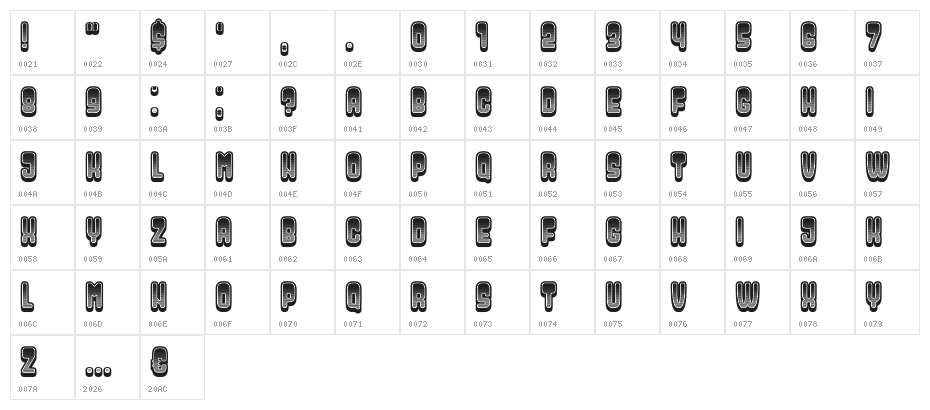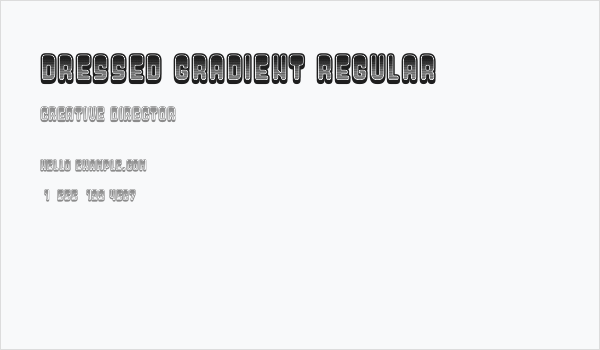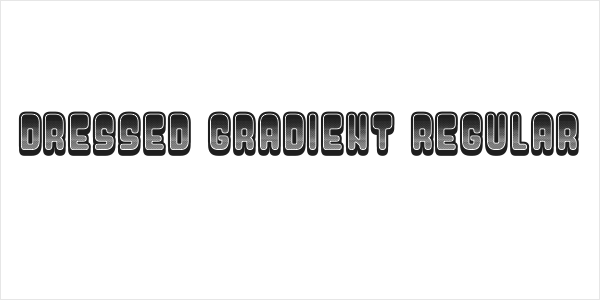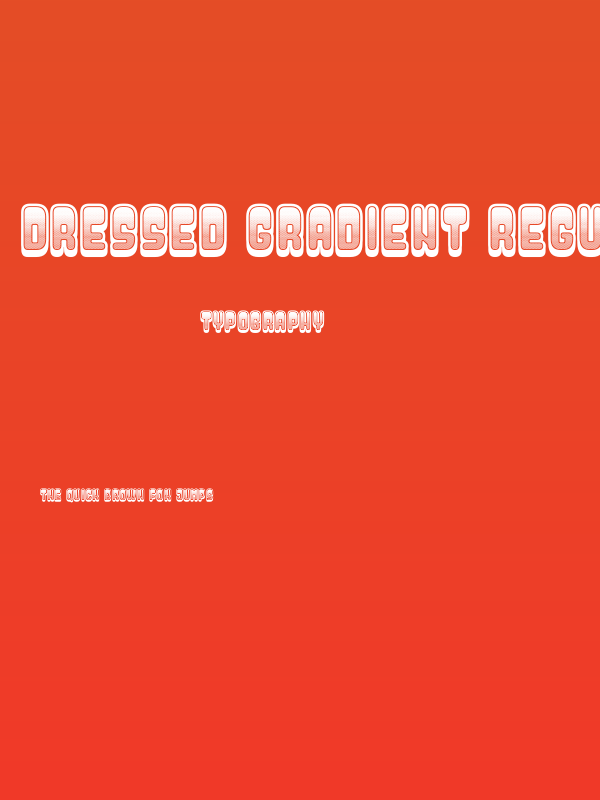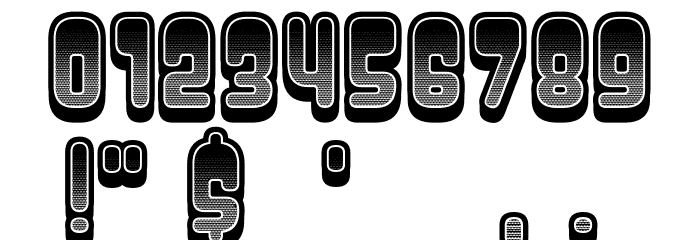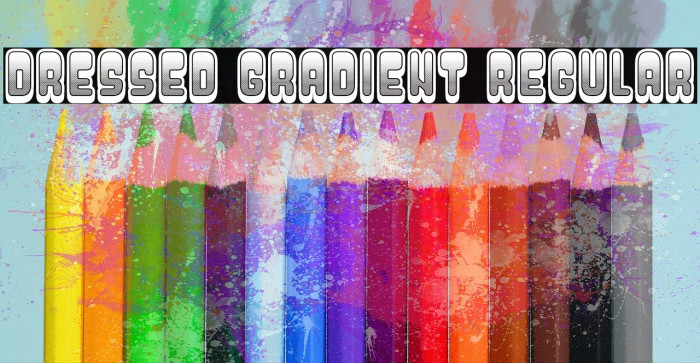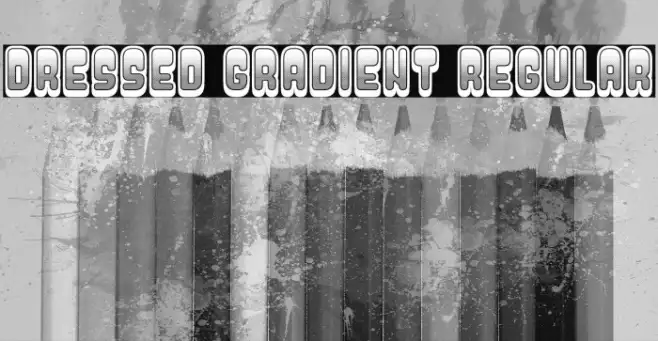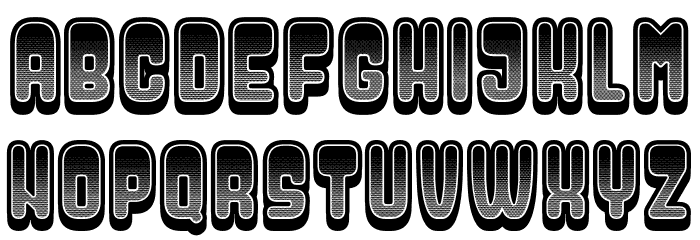
Dressed Gradient Regular Font
Dressed Gradient Regular Description
This font features a bold, decorative style with a unique gradient effect that gives it a three-dimensional appearance. The characters are outlined with a thick black border, enhancing their visibility and making them stand out. The interior of each letter is filled with a dotted gradient pattern, transitioning from dark to light, which adds depth and a modern flair. The font maintains a consistent width across all characters, ensuring uniformity and balance. Its playful yet sophisticated design makes it suitable for eye-catching displays.
| Proposed Projects | Ideal for posters, headlines, branding, and any project requiring a striking and modern aesthetic. |